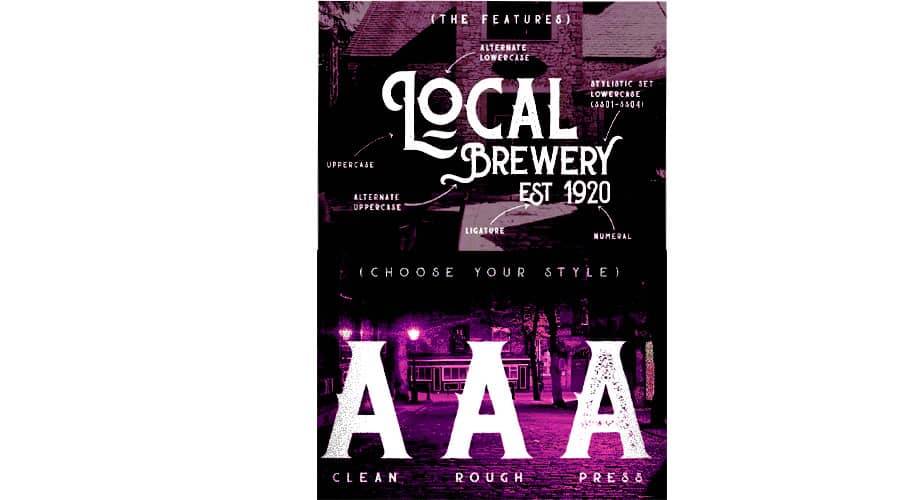
Sherlock Typeface
Featuring Sherlock Typeface! Designed and shared by DikasStudio on June 5, 2019.
Sherlock Typeface is a handcrafted font display inspired by vintage posters. It’s a famous font among all known display fonts. Sherlock comes in three styles: clean, rough, and press. Its hand-drawn characters and OpenType functionality make it ideal for creating vintage designs. The TrueType and OpenType versions of this font are both available. The attractive font is available in a variety of styles, which include Display and handwritten. Some standard fonts are- Hijrah Display Gothic Font, Jocker Vintage Font Family, Goldenlife Vintage Display Font and many more.
This font is great for branding projects with vintage feelings and timeless touch. This incredible font is also an excellent option to make antique designs, branding, logos, product packaging, invitations, quotes, t-shirts, label posters, and so on. This font can ideally be used in logo making without any doubt. It gives a polished look to any work.